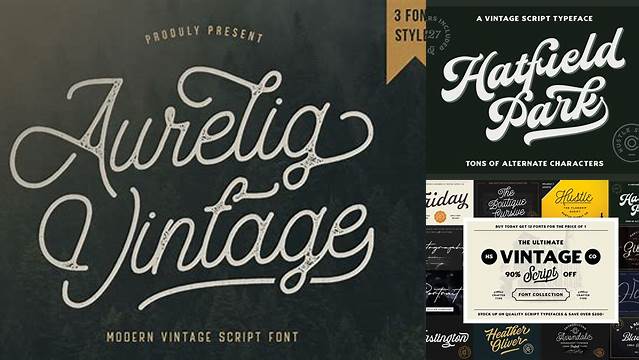
Free Vintage Script Fonts: The Ultimate Guide
Hey guys! Are you looking to add a touch of elegance and nostalgia to your designs? Nothing beats a classic vintage script font! These fonts can instantly transport your projects back in time, giving them a sophisticated and timeless feel. But finding the perfect free vintage script font can be a bit of a treasure hunt. That's why we've put together this ultimate guide to help you navigate the world of vintage script fonts and discover amazing options that won't break the bank. Let’s dive in!
The Allure of Vintage Script Fonts
What is it about vintage script fonts that makes them so captivating? These fonts evoke a sense of history, craftsmanship, and artistry. Think of old handwritten letters, vintage advertisements, and classic signage. Vintage script fonts bring that same charm and character to your designs, making them ideal for a wide range of projects, from wedding invitations and logos to posters and social media graphics. The elegant curves and flourishes of a well-designed vintage script font can add a touch of sophistication and personality that other font styles simply can't match.
1. Best Free Vintage Script Fonts for 2024
Okay, let's get down to business! Finding the best free vintage script fonts can sometimes feel like searching for a needle in a haystack, but don’t worry, I’ve done the digging for you. There are tons of amazing options out there, each with its own unique personality and flair. In this section, we'll explore some of the top free vintage script fonts available right now. We’ll look at fonts that are perfect for adding a touch of classic elegance to your projects. Whether you're working on a wedding invitation, a logo, or a social media graphic, there's a vintage script font out there that's just right for you. I’ll highlight some of my personal favorites and explain why they stand out from the crowd. Let's jump in and discover some hidden gems!
2. Where to Find High-Quality Vintage Script Fonts for Free
So, you're ready to start exploring free vintage script fonts, but where do you even begin your search? There are so many websites and resources out there, it can be overwhelming to know where to start. Don't stress! In this section, we'll uncover the best places online to find high-quality vintage script fonts without spending a dime. We'll explore popular font marketplaces, free font websites, and even some hidden corners of the internet where talented designers share their creations. We’ll also talk about the importance of checking the license before you download a font, to make sure you're using it legally. By the end of this section, you'll have a list of go-to resources for all your free vintage script font needs. Let’s get searching!
4. Distinguishing Authentic Vintage Scripts from Modern Imitations
With the popularity of vintage design, many modern fonts try to capture the essence of vintage scripts. But how do you tell the difference between a truly authentic vintage script font and a modern imitation? This is where things get interesting! Authentic vintage script fonts often have unique characteristics, such as subtle imperfections, varying stroke thicknesses, and a hand-drawn feel. Modern imitations, on the other hand, may be too clean and polished, lacking the character and charm of the real deal. In this section, we'll delve into the telltale signs of an authentic vintage script font. We'll examine the details that set them apart and explore how to spot those fonts that truly capture the spirit of the past. You'll learn to be a vintage script font detective!
5. Utilizing Vintage Script Fonts in Branding
Vintage script fonts can be a game-changer when it comes to branding. They add a touch of sophistication, personality, and history to your brand identity. Think about iconic brands that use vintage scripts in their logos and marketing materials. They instantly evoke a sense of trust and heritage. In this section, we'll explore how you can effectively use vintage script fonts in your branding efforts. We’ll look at choosing the right font to match your brand’s personality, pairing vintage scripts with other font styles, and using them consistently across your brand materials. We’ll also examine some real-world examples of brands that have successfully incorporated vintage scripts into their branding. Get ready to elevate your brand with the timeless appeal of vintage script fonts!
6. Vintage Script Fonts for Wedding Invitations
Planning a wedding? Vintage script fonts are an absolute must-have for creating elegant and timeless wedding invitations. They add a touch of romance and sophistication that's perfect for setting the tone for your special day. In this section, we'll explore the best vintage script fonts for wedding invitations. We’ll look at fonts that are legible, beautiful, and evoke a sense of classic romance. We’ll also discuss how to pair vintage scripts with other fonts, how to choose the right paper and printing techniques, and how to create a cohesive and stunning invitation suite. Get ready to create invitations that your guests will cherish forever!
7. Incorporating Vintage Script Fonts in Logo Design
A well-chosen vintage script font can make your logo truly stand out. It can convey a sense of history, craftsmanship, and attention to detail, making your brand more memorable and trustworthy. In this section, we'll dive into the art of incorporating vintage script fonts into logo design. We’ll discuss the factors to consider when choosing a font for your logo, such as readability, scalability, and how it reflects your brand’s personality. We’ll also explore how to pair vintage scripts with other fonts and graphic elements to create a logo that is both timeless and unique. Get ready to design a logo that captures the essence of your brand!